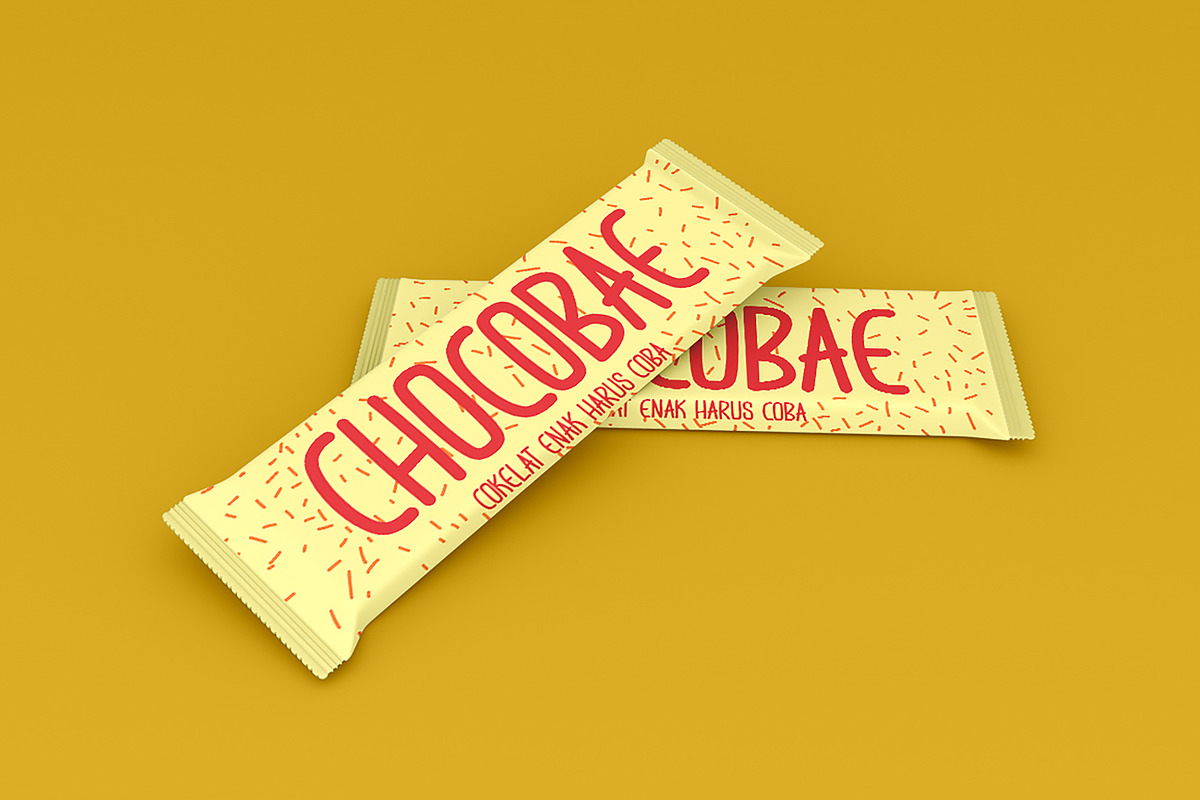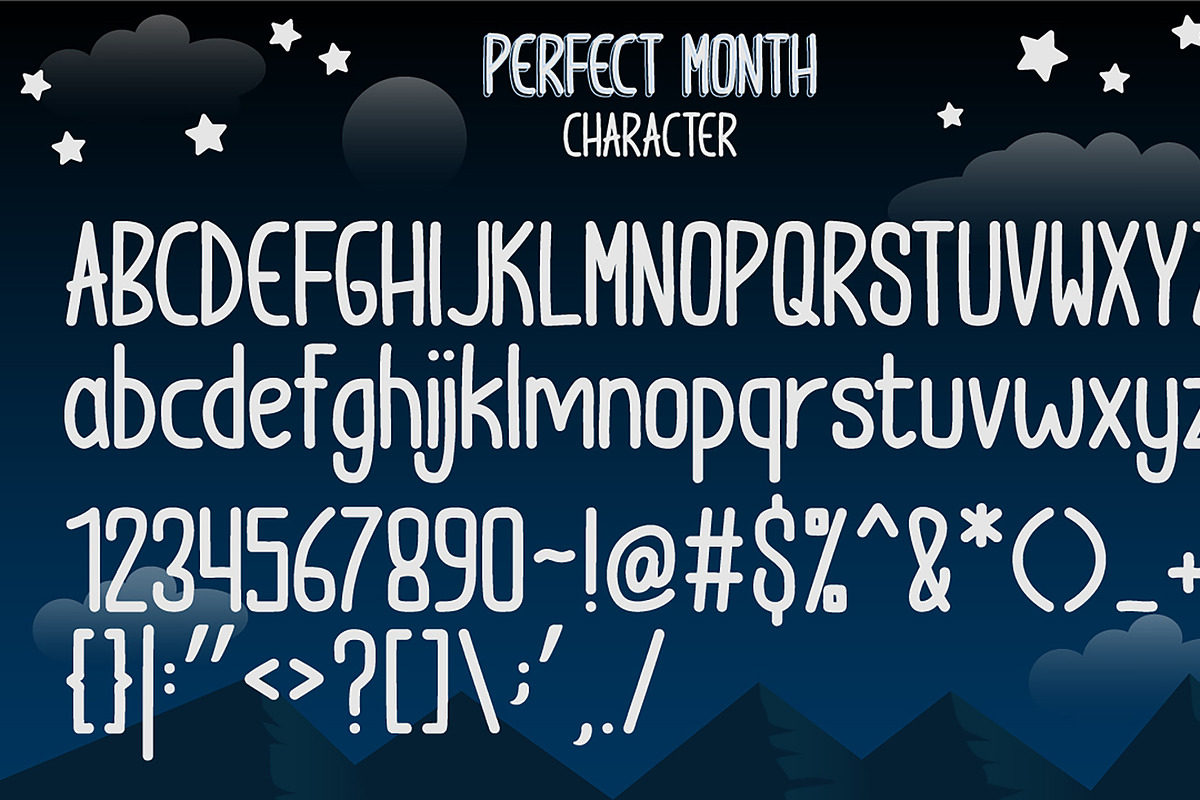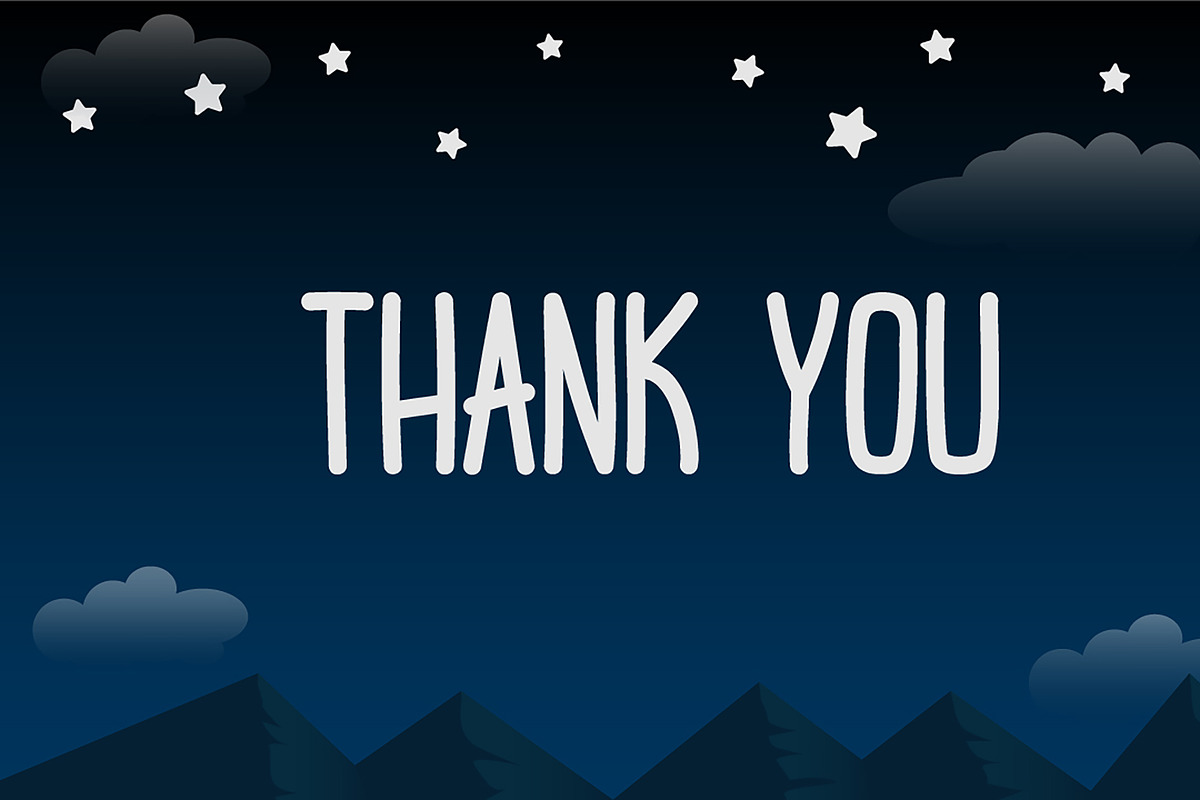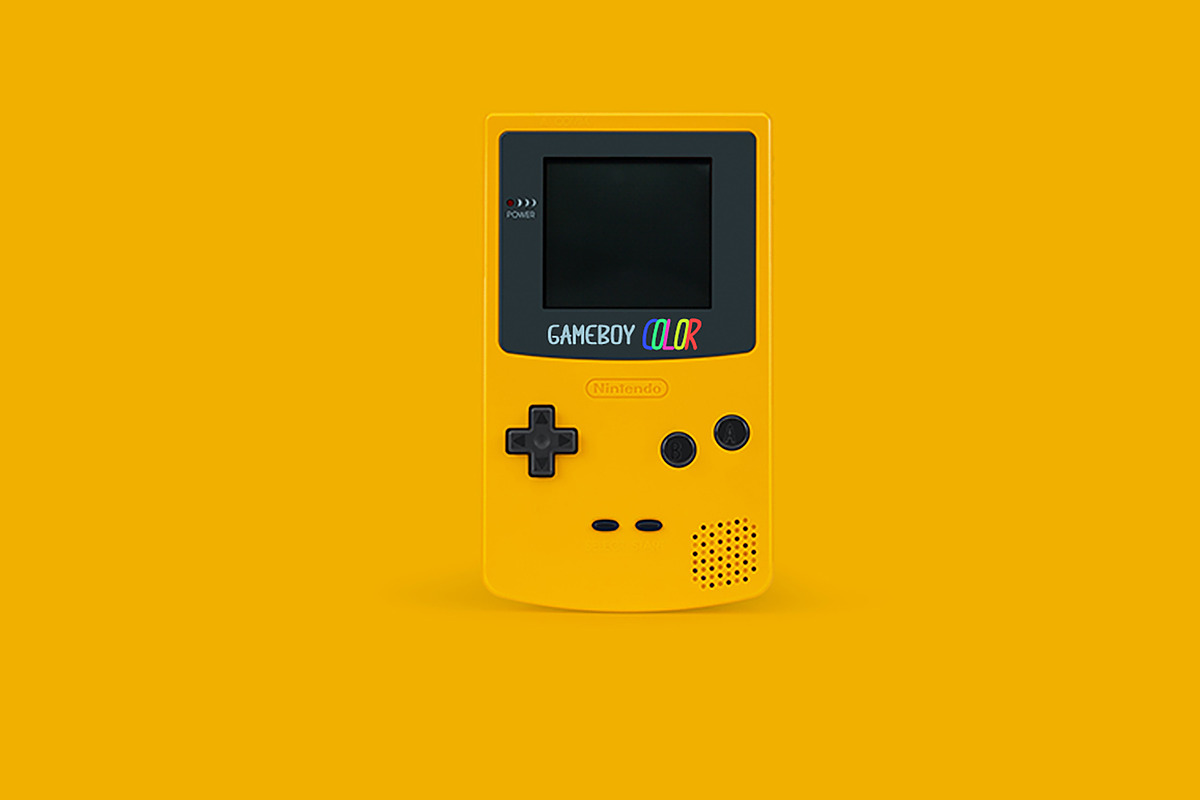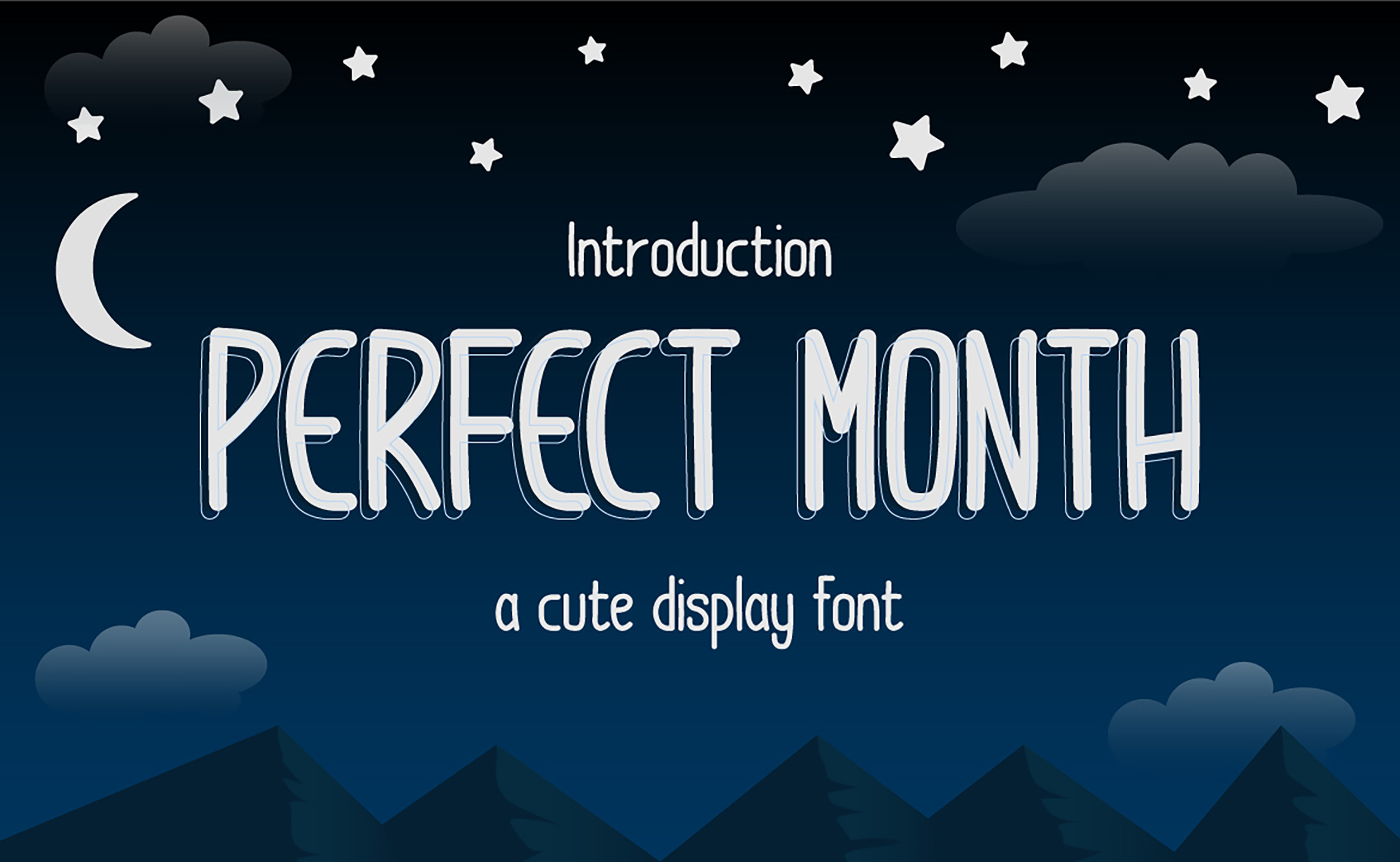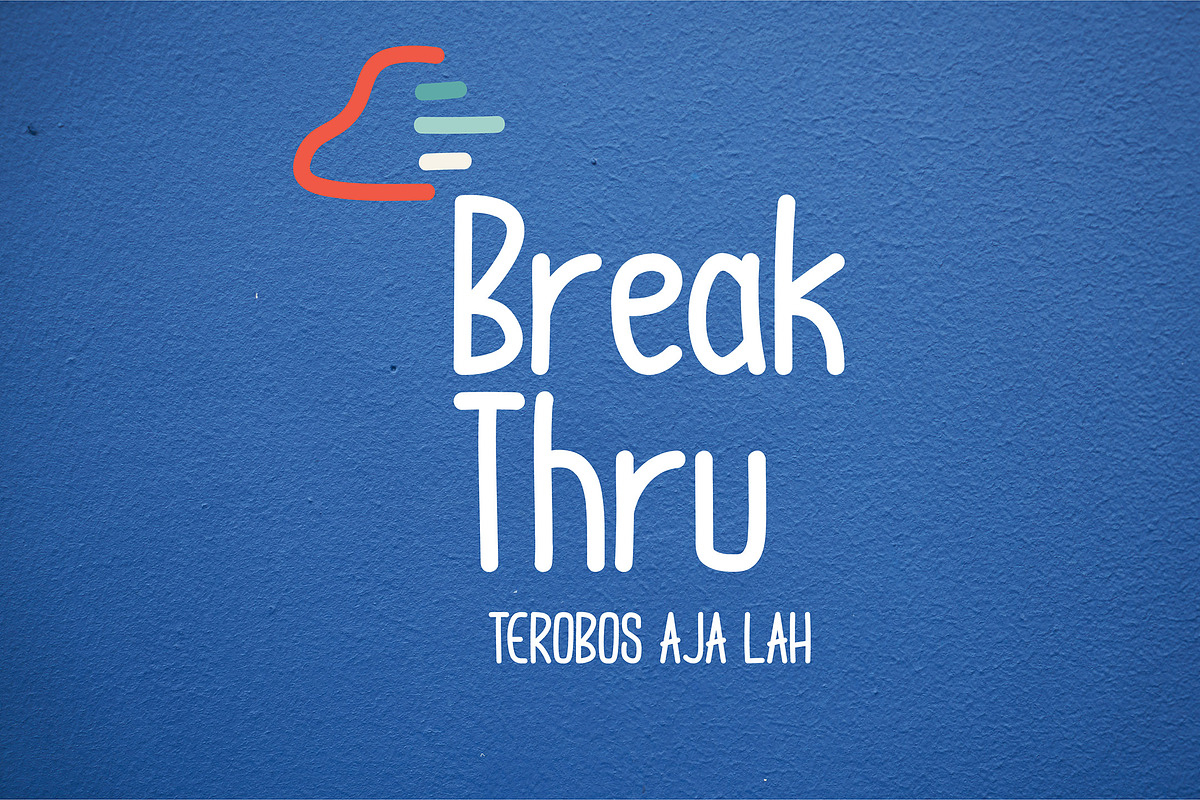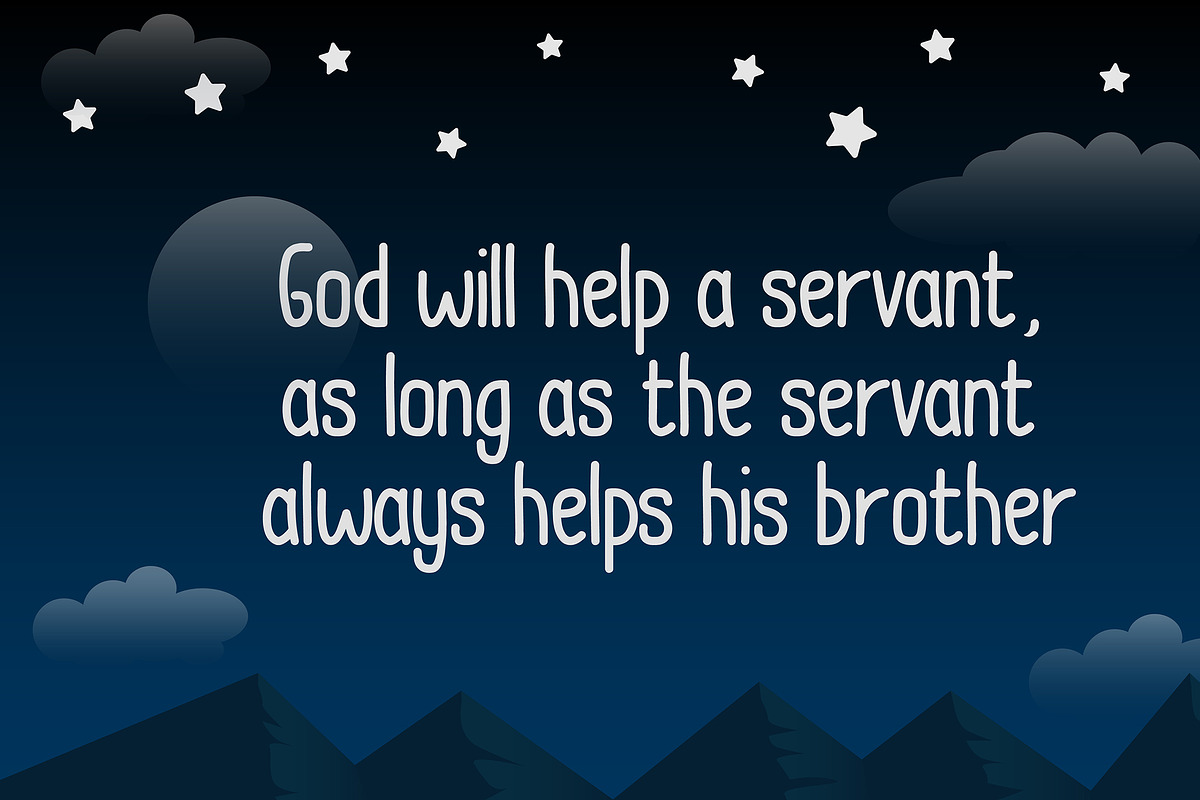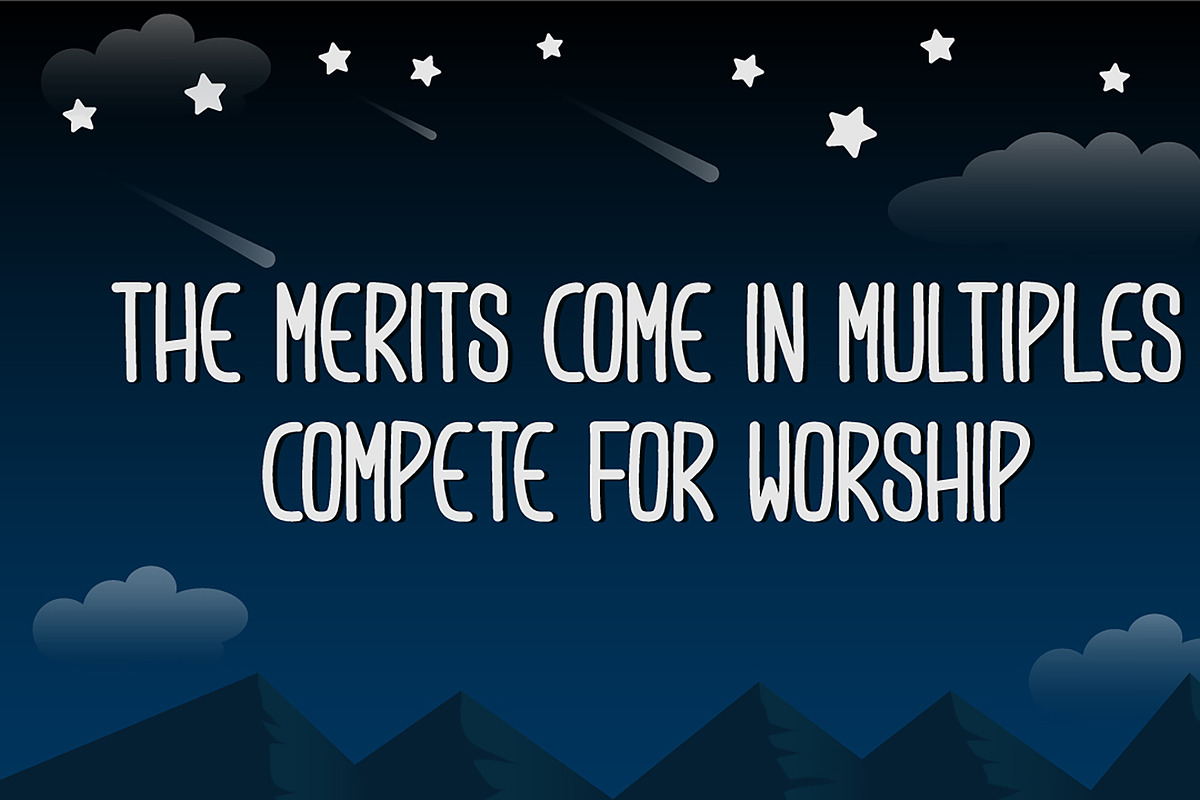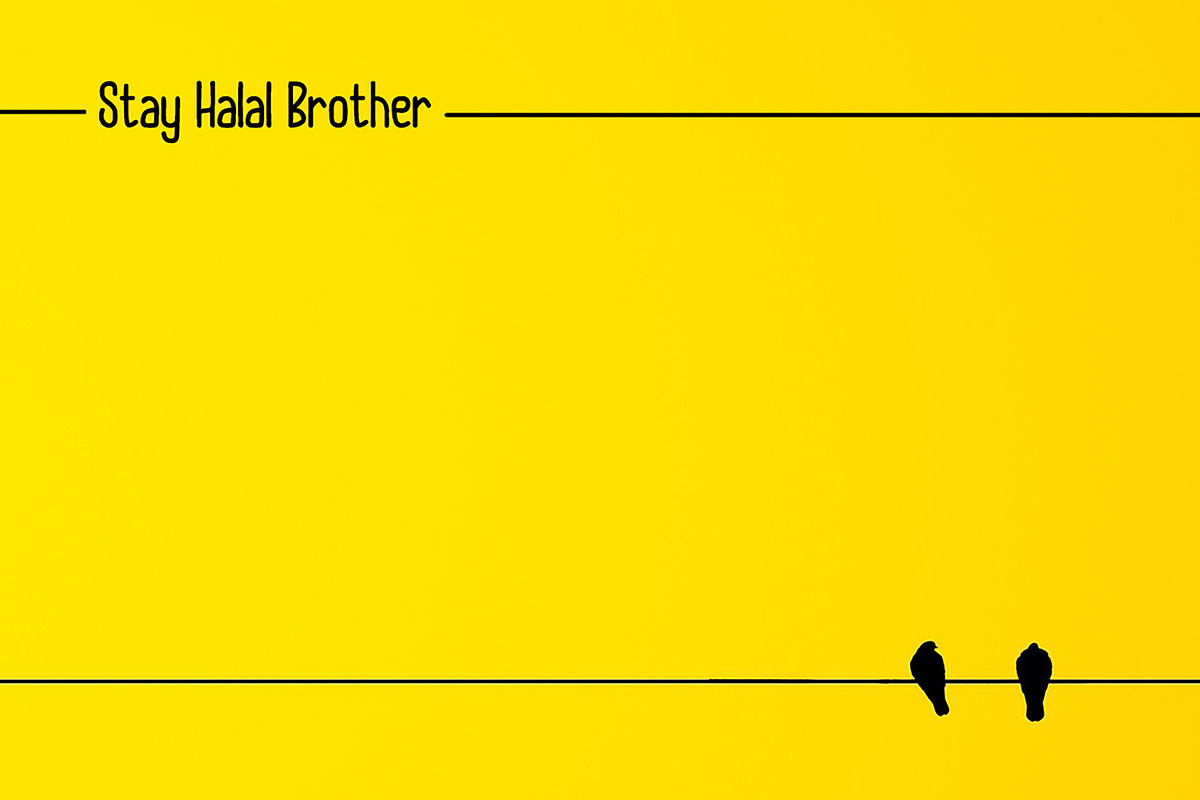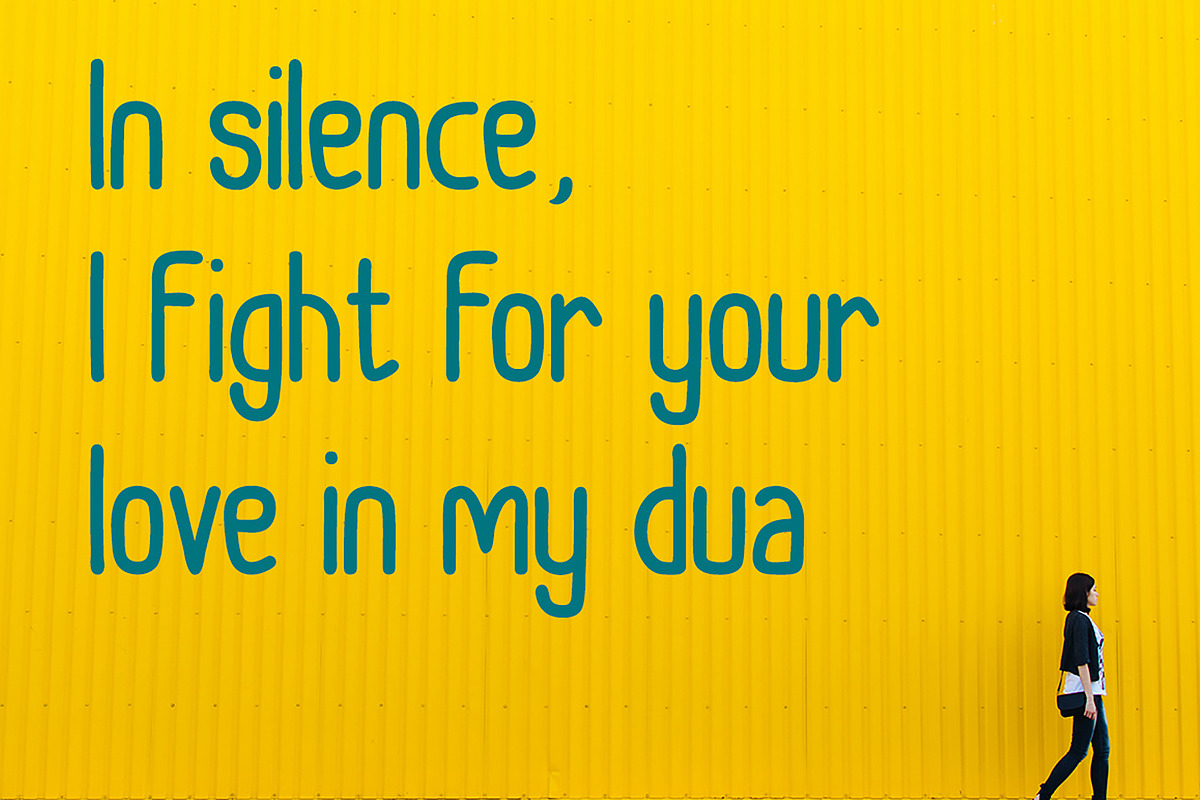
Perfect Month - a Cute Display Font
Perfect Month is one of those fonts that is very dynamic so it is suitable to be placed in any design. a font inspired by a happy morning and created with a happy heart in the end. This font can be applied to graphic design, movies, books, to t-shirts.